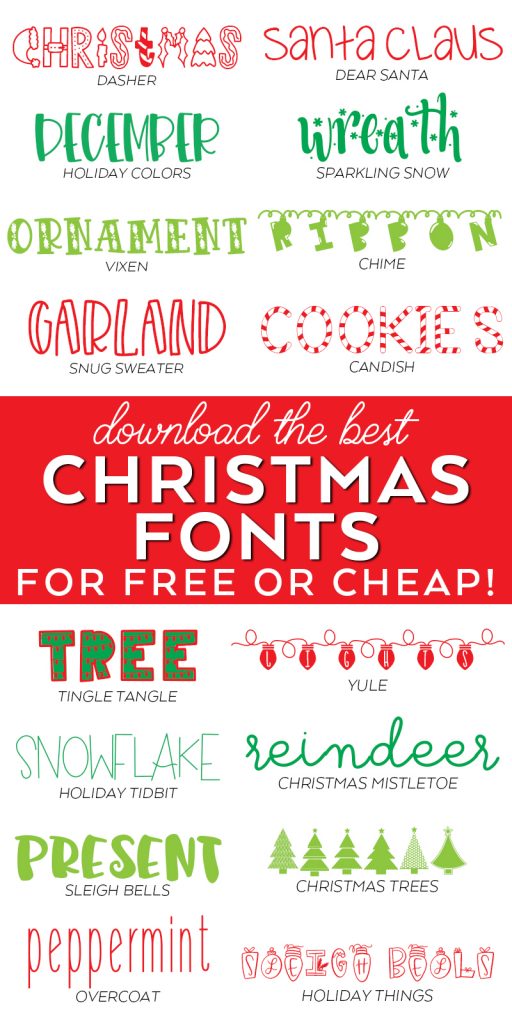
Best Free and Cheap Christmas Fonts
If you’re busy making Christmas crafts and gifts, you’ll love this post! If you would like to make your own designs, you will need fonts that are perfect for Christmas. I have gathered up 15+ of my FAVORITE Christmas Fonts that I use all of the time to make designs for cards, printables, and Cricut projects!
It’s the time of year where all of us crafters are busy in our craft rooms (or on our kitchen tables) creating gifts for friends and family for Christmas. I like to have a solid collection of Christmas themed fonts that I can pull up to make all of my projects special.
My best Christmas fonts range from fun and simple hand lettered block fonts to dingbat fonts (the fonts that are little illustrations!) to hand drawn fonts. There’s even a few that I can use all year, although I tend to use these more for just Christmas than the ones from my Best Autumn Fonts list.
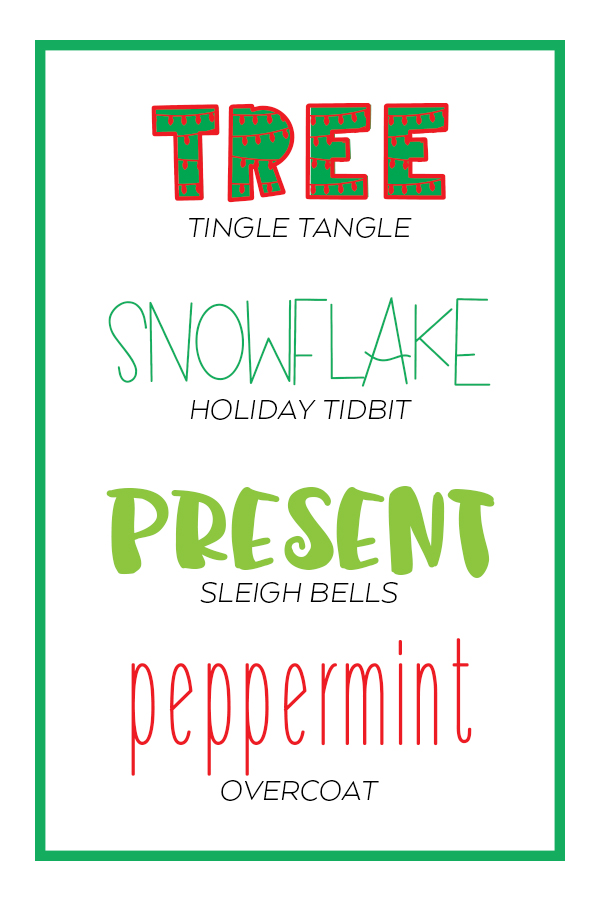
- Tingle Tangle
- Holiday Tid-bits (on Creative Fabrica)
- Sleigh Bells
- Sparkling Snow
- Chime (on Creative Fabrica)
- Candish (as of December 2020, this one is unavailable, but I LOVE this candy cane font, too!)
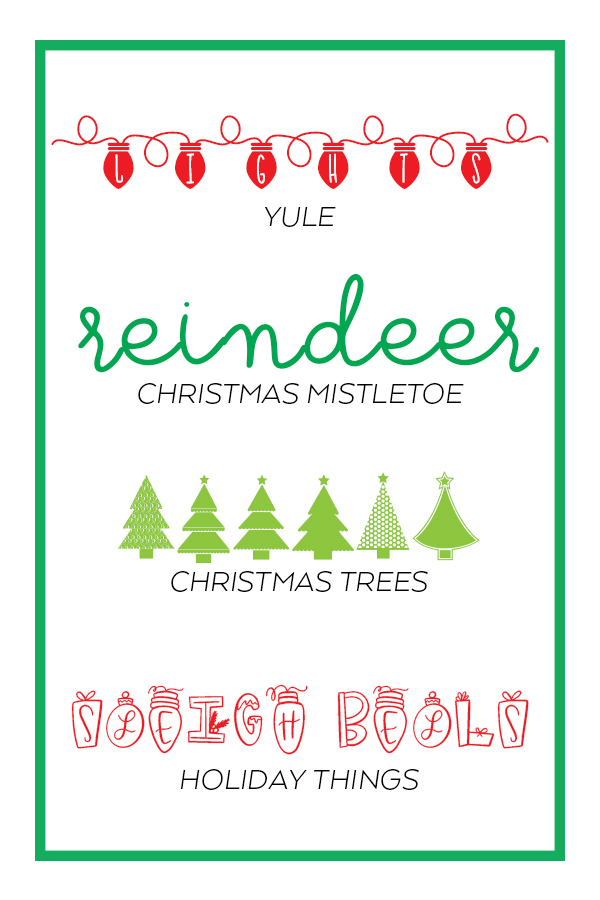
- Yule
- Christmas Mistletoe
- Holiday Things